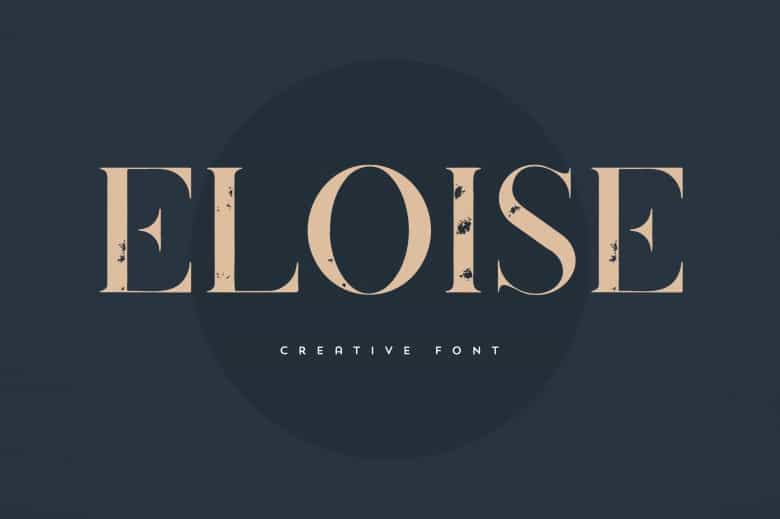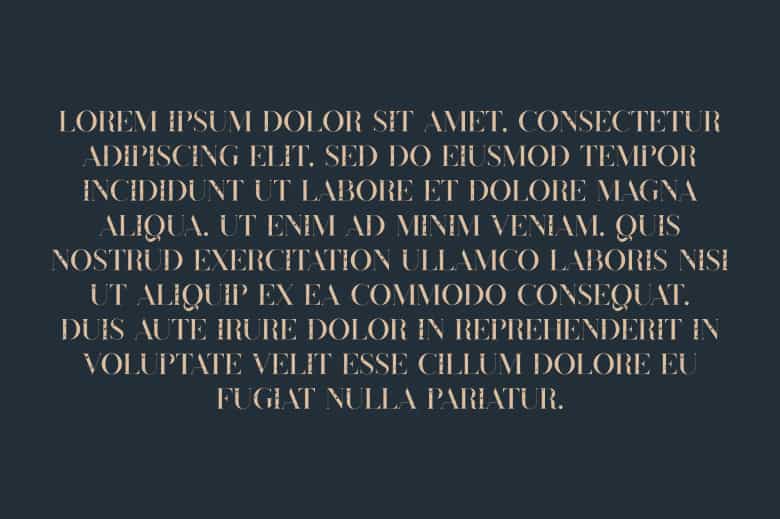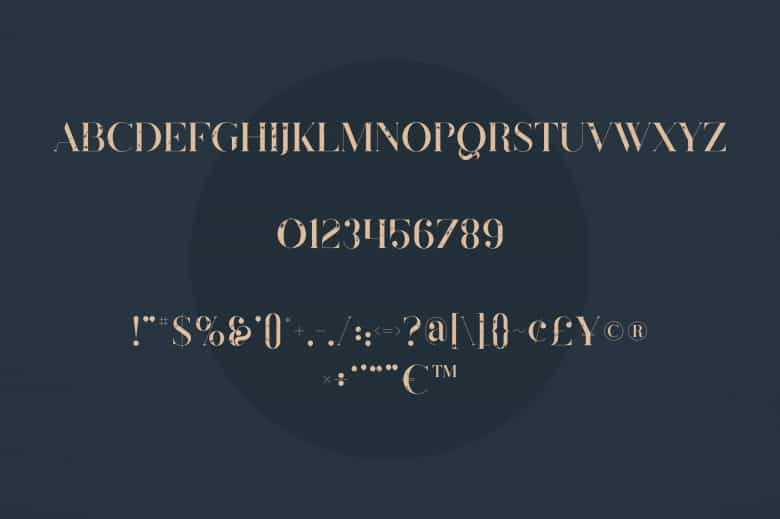
Eloise is an elegant and flexible serif typeface designed to add flair and variety to your typography! Sure to captivate any headline, logo, branding or simple text! Perfect for branding purposes as well as homeware designs, packaging products or magazine headers or simply as an elegant text overlay for every background picture!